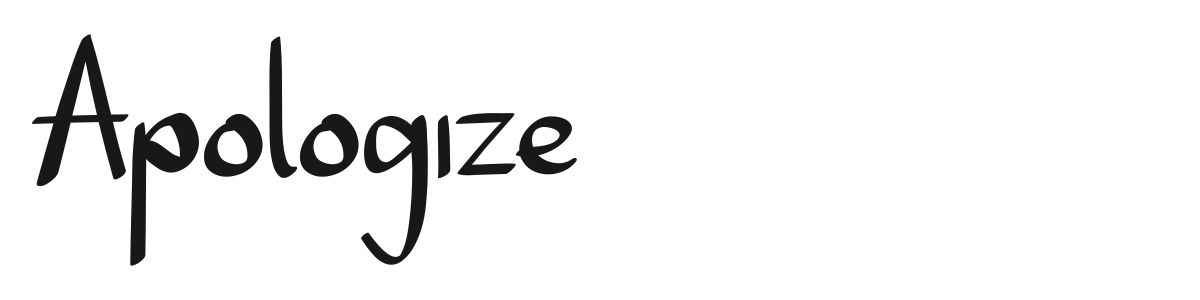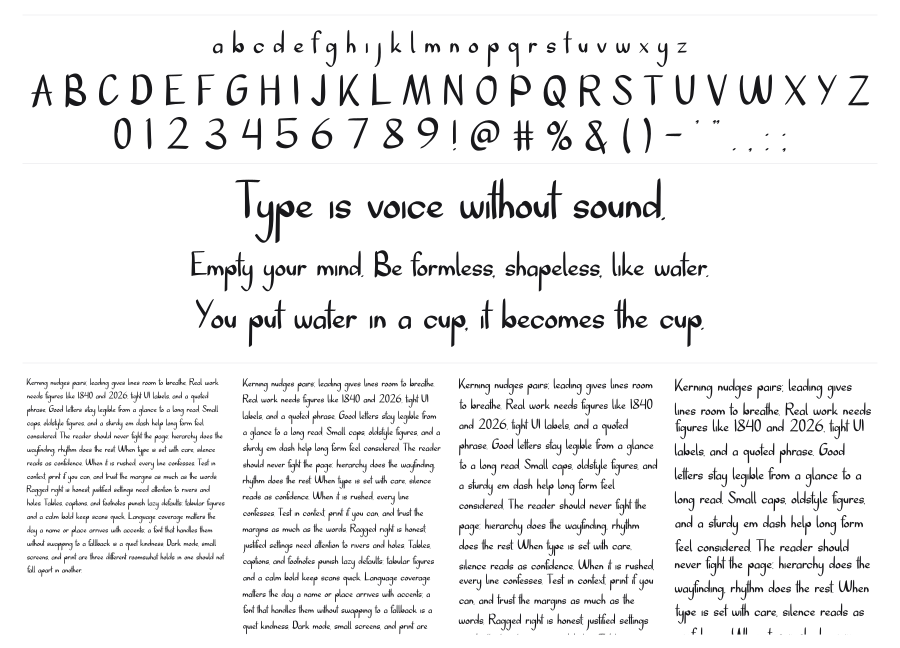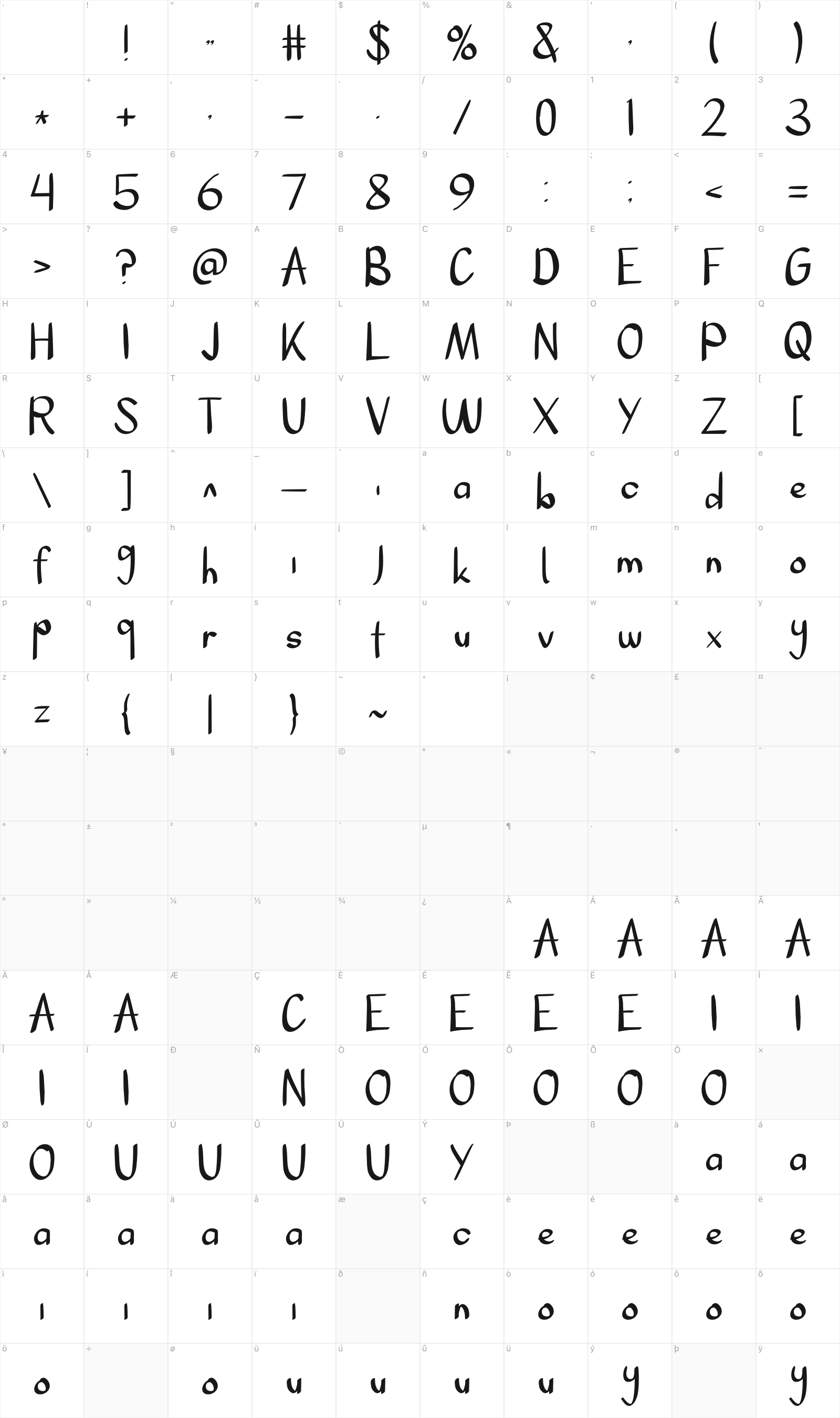
Apologize
by Pinisiart
Apologize is a bold casual handwriting script with thick rounded strokes and a relaxed, natural flow. The letters lean slightly and vary in rhythm, giving it the feel of confident freehand writing rather than formal calligraphy. It works best at large sizes where the personality and warmth of the design can breathe.